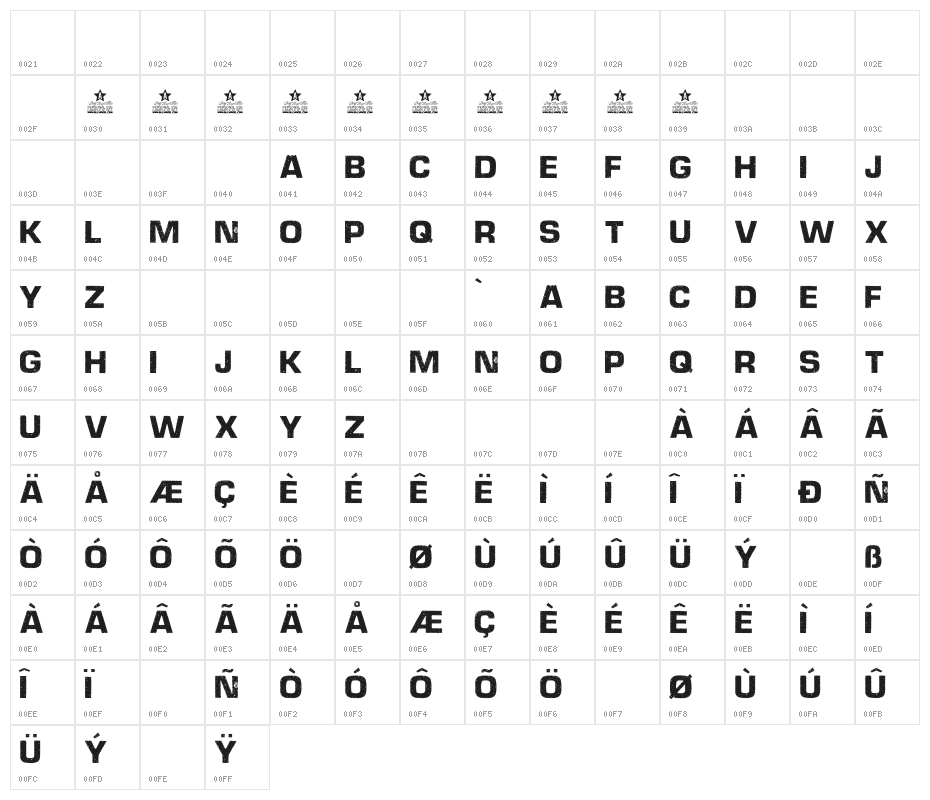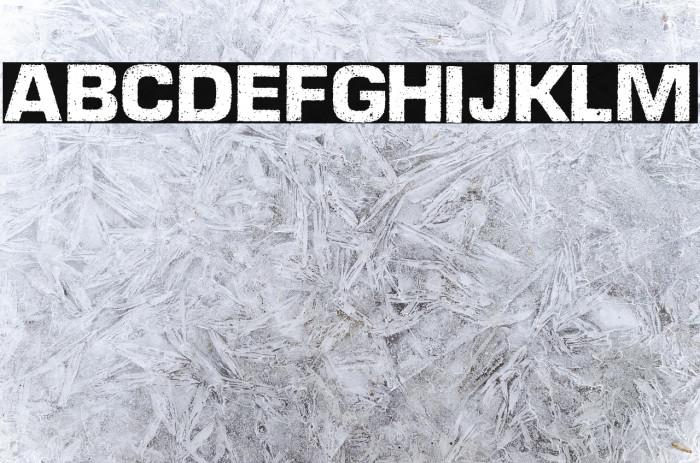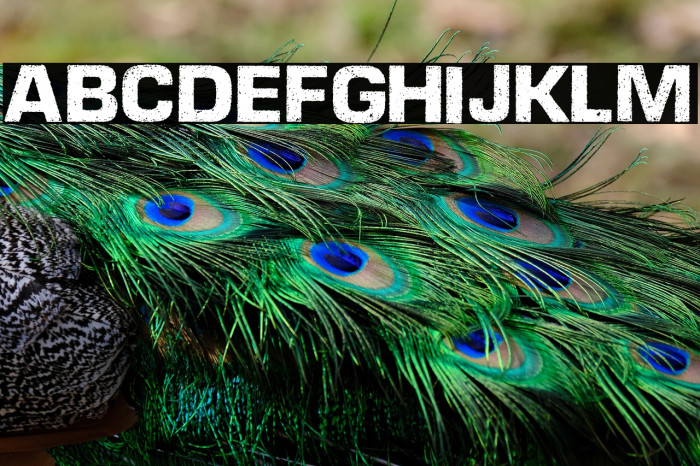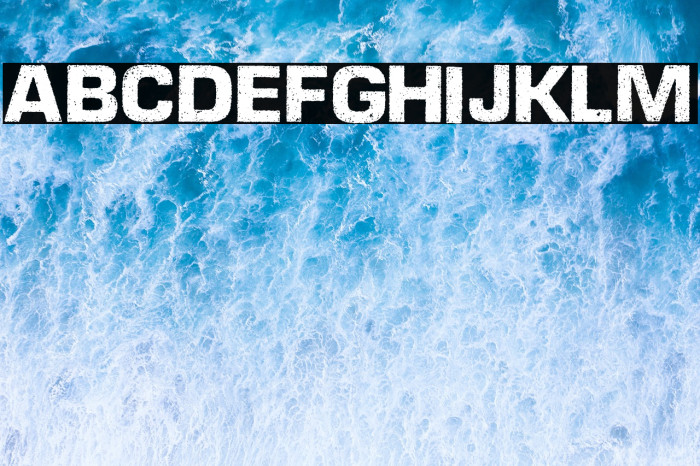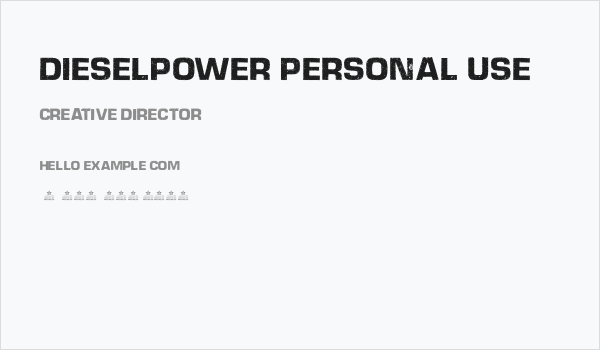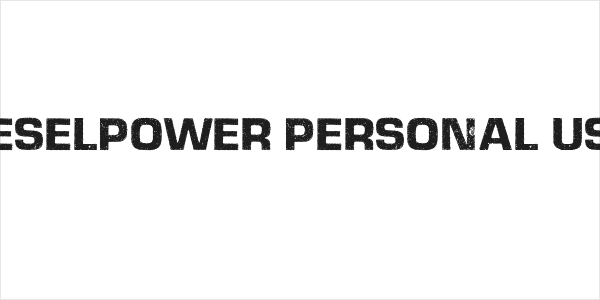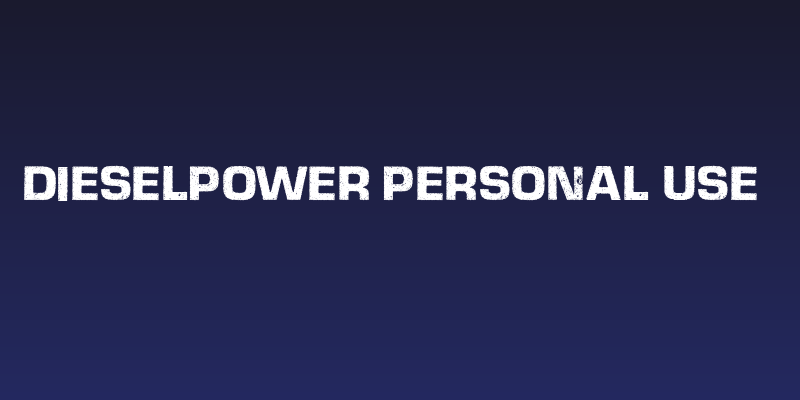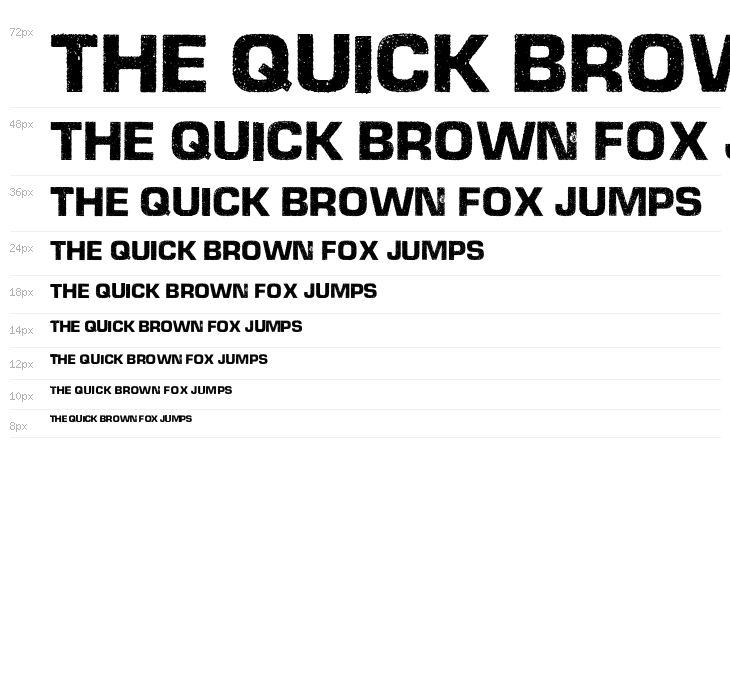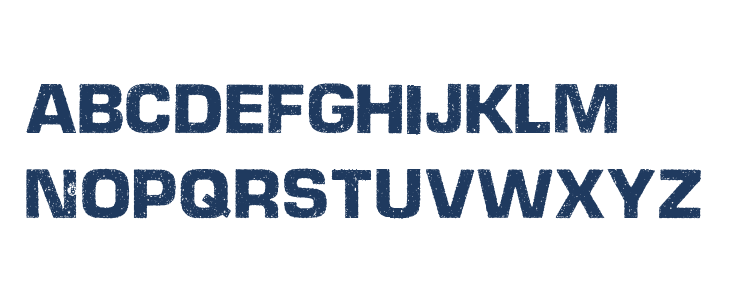
DIESELPOWER PERSONAL USE Font
DIESELPOWER PERSONAL USE Description
This font features a bold, distressed style with a textured appearance that gives it a rugged, industrial feel. The uppercase letters are uniformly bold, with a slightly roughened edge that adds character and a vintage touch. The font's design is reminiscent of stenciled lettering, often used in industrial or military contexts, providing a sense of strength and durability. Its boldness ensures high visibility, making it suitable for impactful headlines or titles. The texture within each letter adds depth and interest, making it stand out in various design applications.